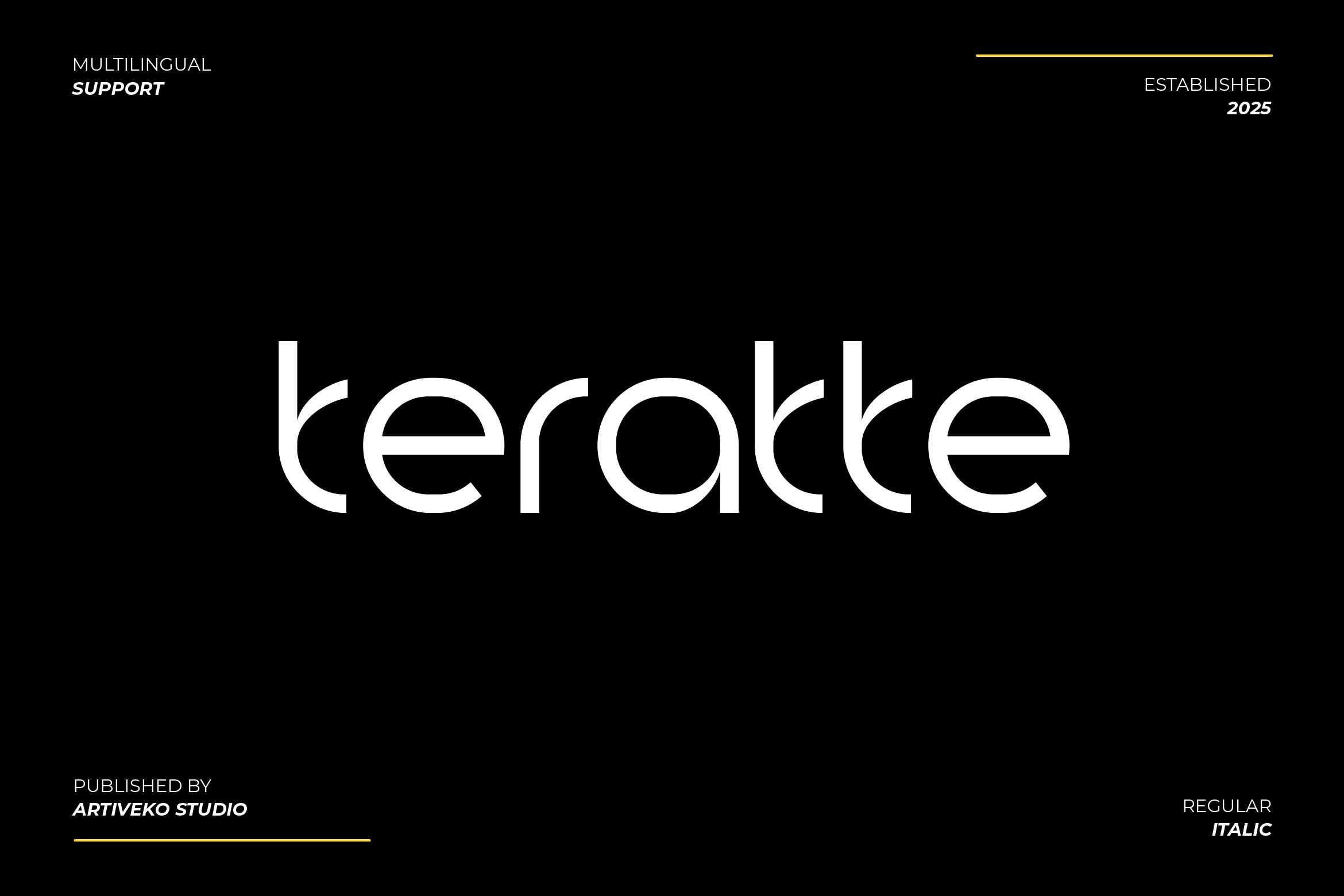
- Teratte Minimalist Sans Serif Font
Teratte is a sleek and elegant sans serif font crafted to bring clarity and sophistication to your designs. With its balanced proportions, clean strokes, and refined geometry, Teratte embodies minimalist aesthetics, making it perfect for branding, editorial layouts, website design, premium packaging, presentations, and social media content.
Its versatile style ensures excellent readability while delivering a polished, contemporary look for both bold headlines and delicate body text. Ideal for fashion, lifestyle, corporate, and creative industries, Teratte adapts seamlessly to various design applications.
The font includes uppercase and lowercase letters, numerals, punctuation, multilingual support, and stylistic alternates to give you more creative control.
Bring elegance and modern simplicity to your typography with Teratte — the minimalist sans serif that defines clean sophistication.